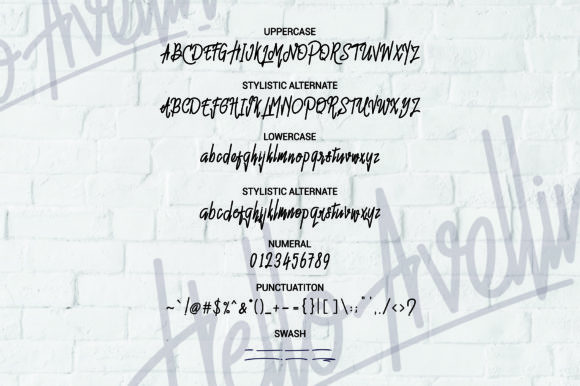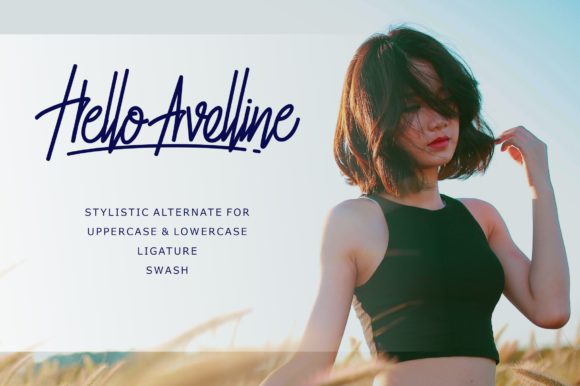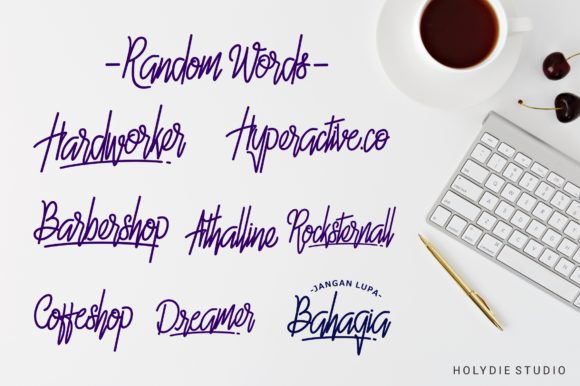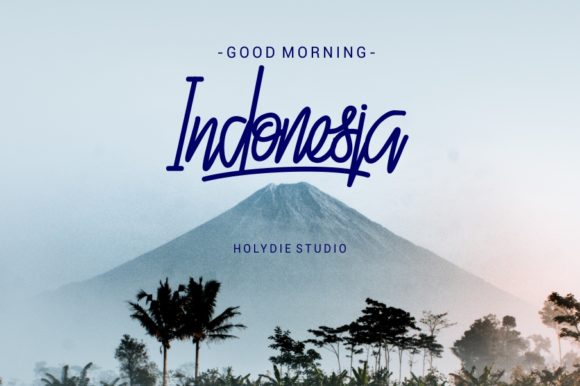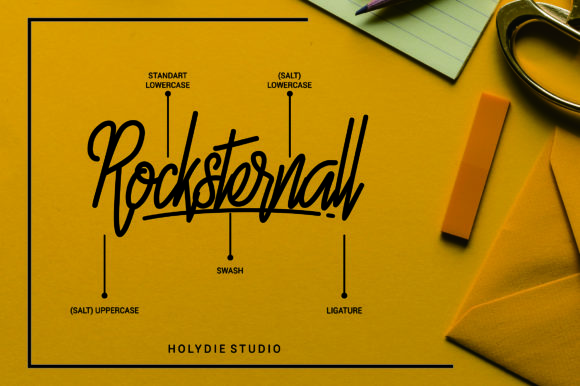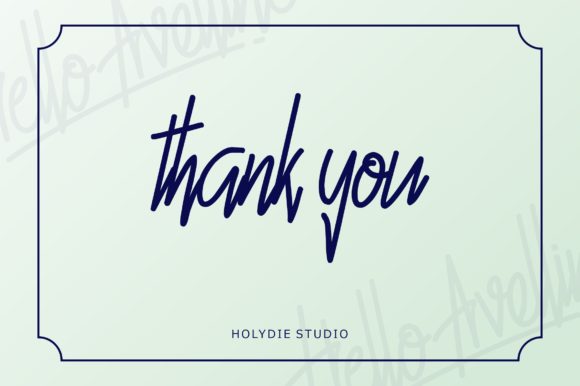
Hello Avelline Font
The Hello Avelline is a fresh monoline script font. It’s suitable for logos, branding, magazines, signature, apparel, posters, advertising, business cards, and more